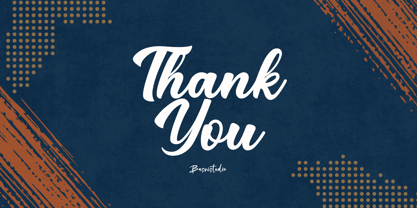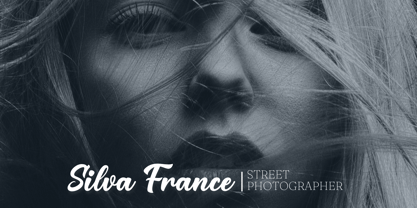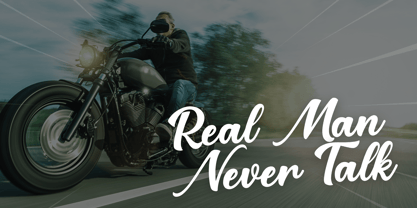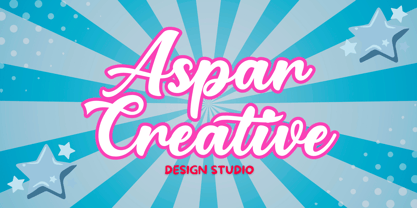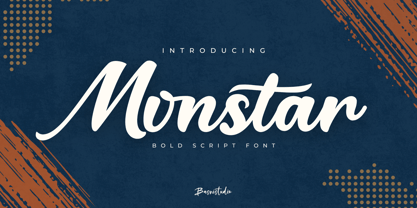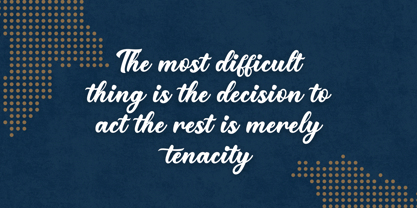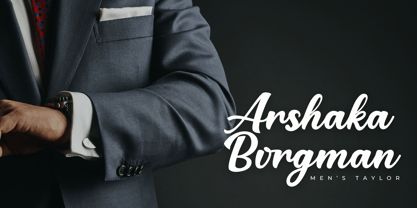
Monstar
by Basnistudio
The Monstar Font Family was designed by Bery Arisandi and published by Basnistudio. Monstar contains 1 styles. More about this family
Introducing Monstar Bold Script Font
Monstar Bold Script Font, made by Naturaly Bold Script With Authentic Style.
This Font is perfect for an magazine, clothes, quotes, and so much more. This font is PUA encoded, which means you can access all of the glyphs.
Designers: Bery Arisandi
Foundry: Basnistudio